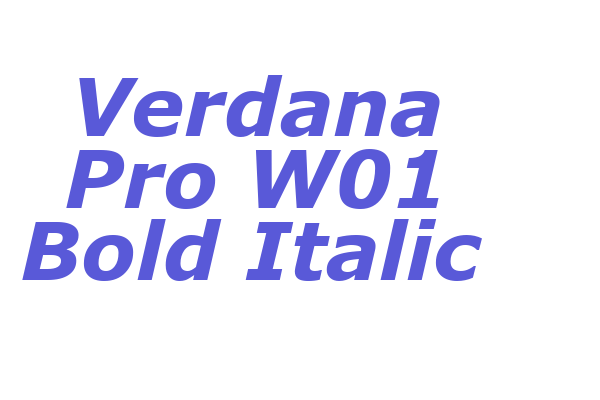
Verdana Pro W01 Bold Italic is a modern and sleek sans-serif font designed by Matthew Carter, Monotype Imaging, and The Font Bureau. With its bold and italic style, this font is perfect for making a statement in headlines, titles, and emphasis in text. Its clean and legible design makes it ideal for a wide range of basic design projects that require a bold and professional touch.
Font Name: Verdana Pro W01 Bold Italic
Designer: Matthew Carter, Monotype Imaging, The Font Bureau